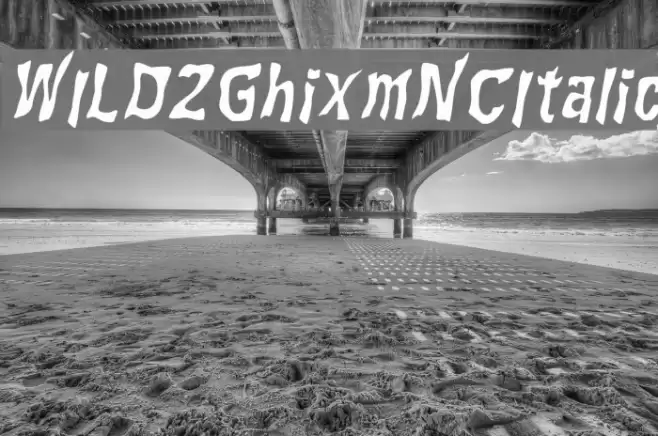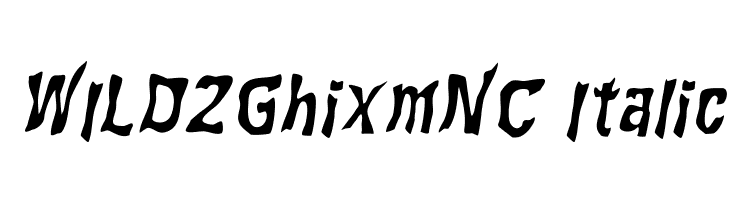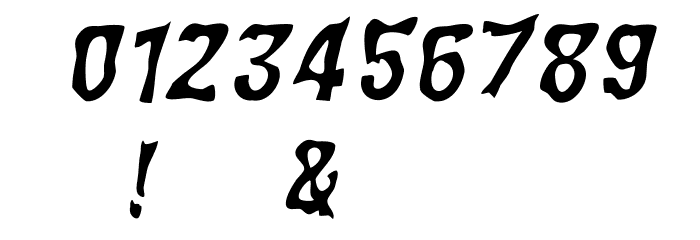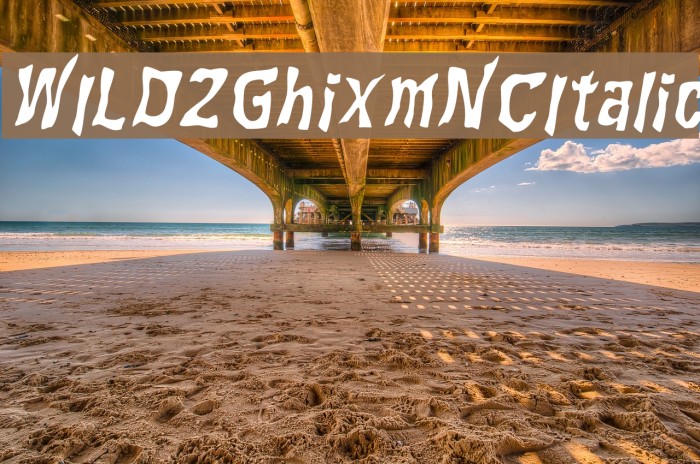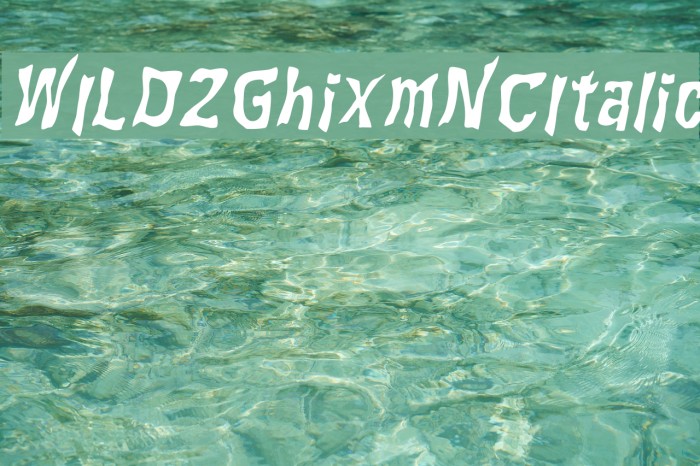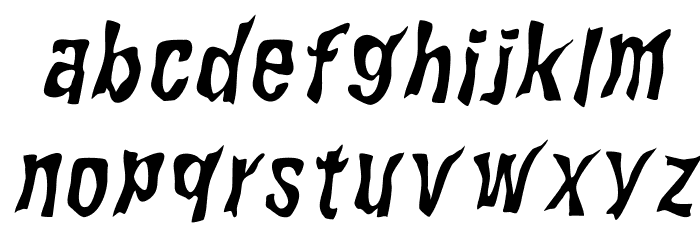
WILD2GhixmNC-Italic Font
WILD2GhixmNC-Italic Description
This font features a dynamic and energetic style with a hand-drawn appearance. The characters are slightly slanted, adding a sense of motion and fluidity. The strokes are uneven, giving it a rugged and organic feel. The uppercase and lowercase letters maintain a consistent style, with bold and expressive lines that vary in thickness, creating a high contrast. The numbers and special characters follow the same aesthetic, ensuring a cohesive look across all elements. This font is ideal for projects that require a bold and artistic touch.
A dynamic, hand-drawn font with high contrast and an energetic style from Uncategorized fonts.
- Proposed Projects: Ideal for posters, album covers, branding, and creative projects that need a bold, artistic flair.